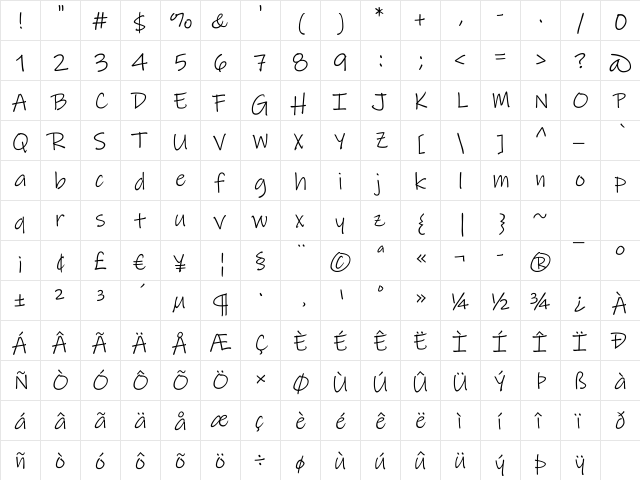
Ink Free Regular Font Preview
Ink Free Regular
Ink Free Regular Font Details
| Foundry | Monotype Imaging Inc. |
| Designer | Steve Matteson |
Design Context for Ink Free Typeface
Ink Free is a composed and adaptable typeface that performs quietly and consistently across a wide range of design contexts.
Pro Tip: Pair Ink Free with a font of contrasting weight or personality to build a more expressive typographic hierarchy.